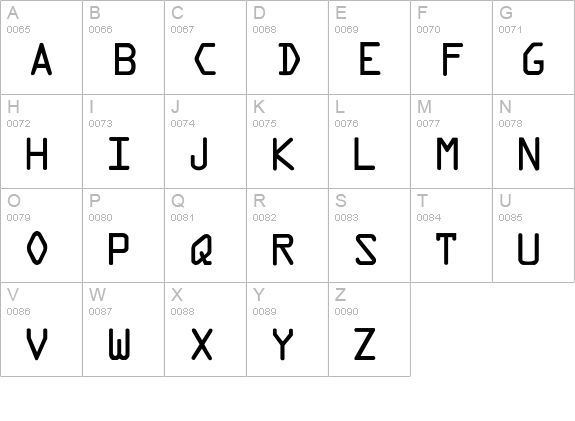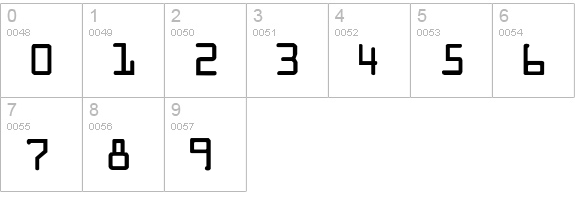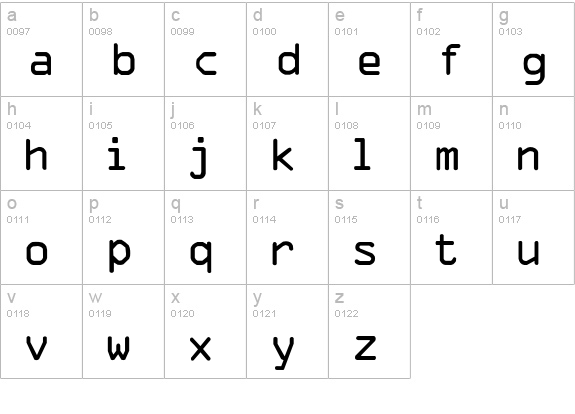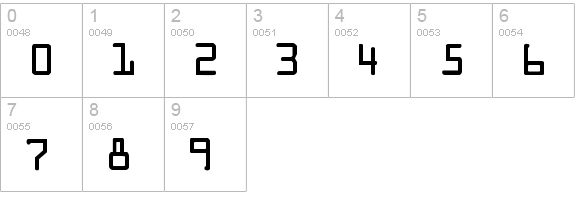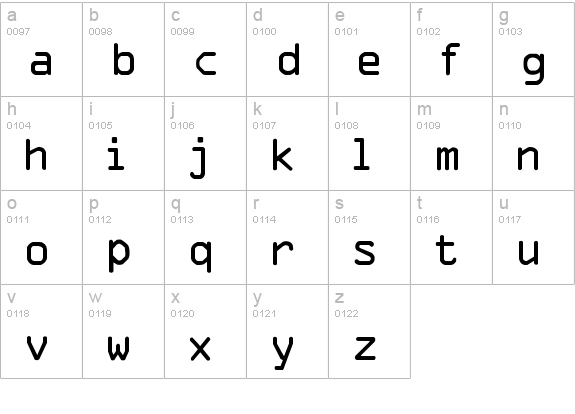
OCR-ARegular Font Details
OCR-ARegular is a classic, monospaced font that is commonly used for optical character recognition purposes. Its clean and simple design makes it easy to read and suitable for a wide range of applications. This font is ideal for creating documents that require high legibility, such as bank statements, invoices, and official documents. The distinctiveness of OCR-ARegular makes it stand out from other fonts and ensures that text is easily recognizable by scanning devices. Best of all, OCR-ARegular is freely available to download at FontsMarket.com. This means that you can easily access this versatile font for your projects without any cost. Whether you need to enhance the readability of your documents or add a professional touch to your designs, OCR-ARegular is a great choice that won't break the bank. Download OCR-ARegular today and elevate the visual appeal of your text with this timeless font.